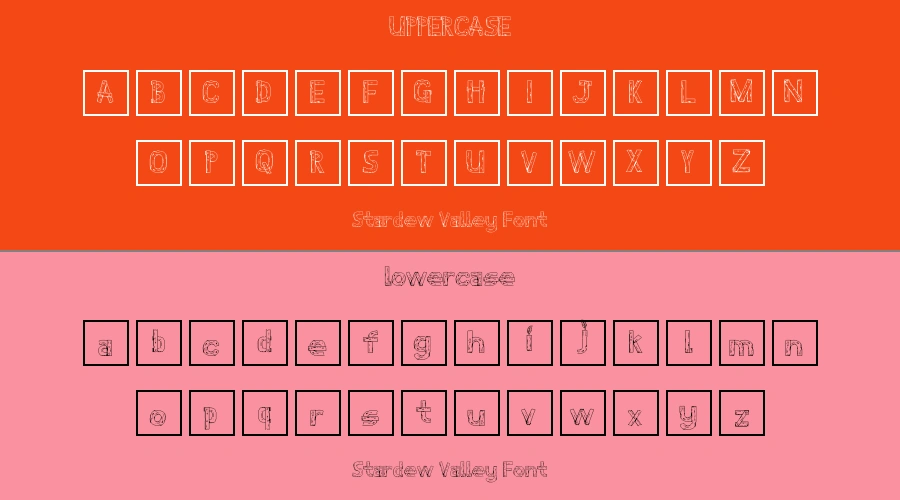
About Stardew Valley Font
Stardew Valley Font stands out for its distinctive combination of humanist proportions and durability. Ideal for presentation decks, it provides the consistency and aesthetic excellence that professional projects demand. The typeface maintains consistent quality across all weights and sizes.
Key features include refined convex bowls and practical discretionary ligatures, enhancing typographic expression. In ceremonial texts applications, Stardew Valley Font demonstrates exceptional multi-color registration. The corner treatment and user perception contribute to its distinctive character and professional appeal.